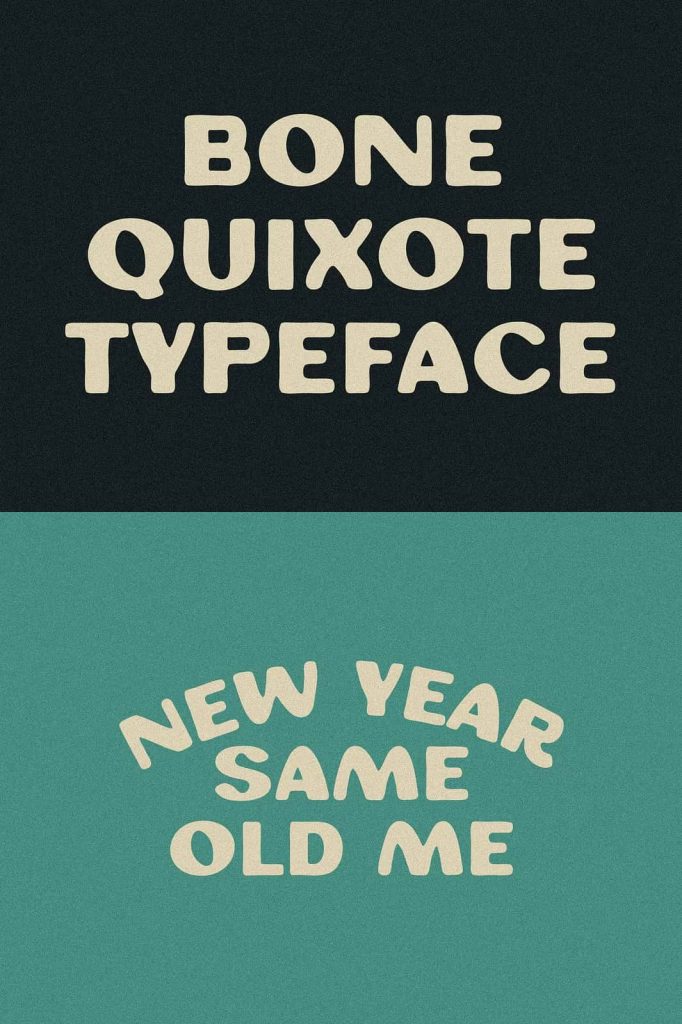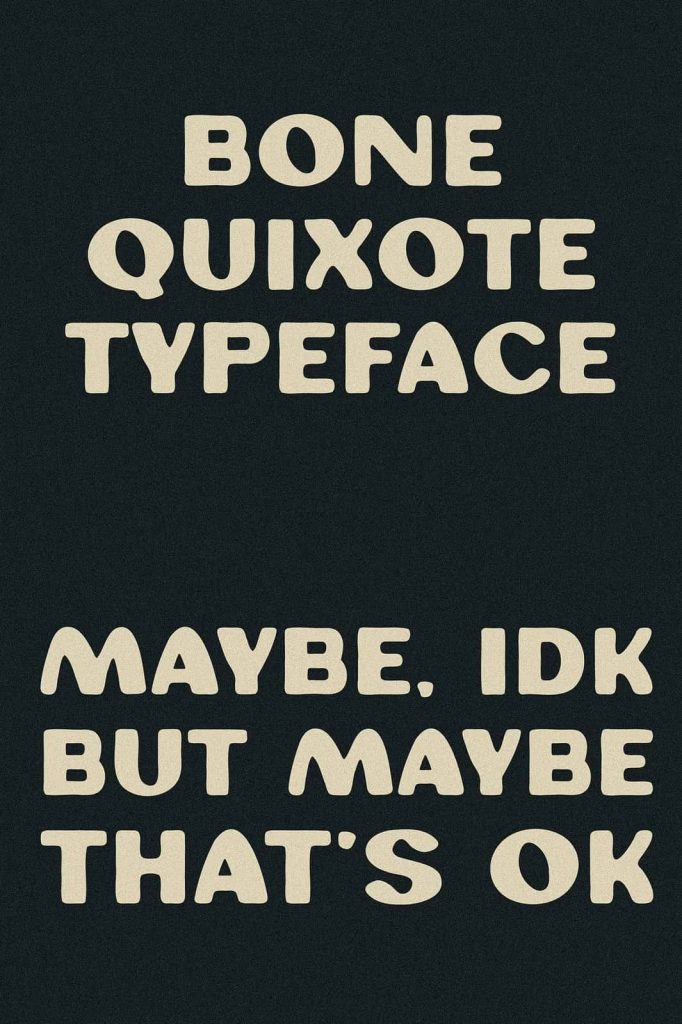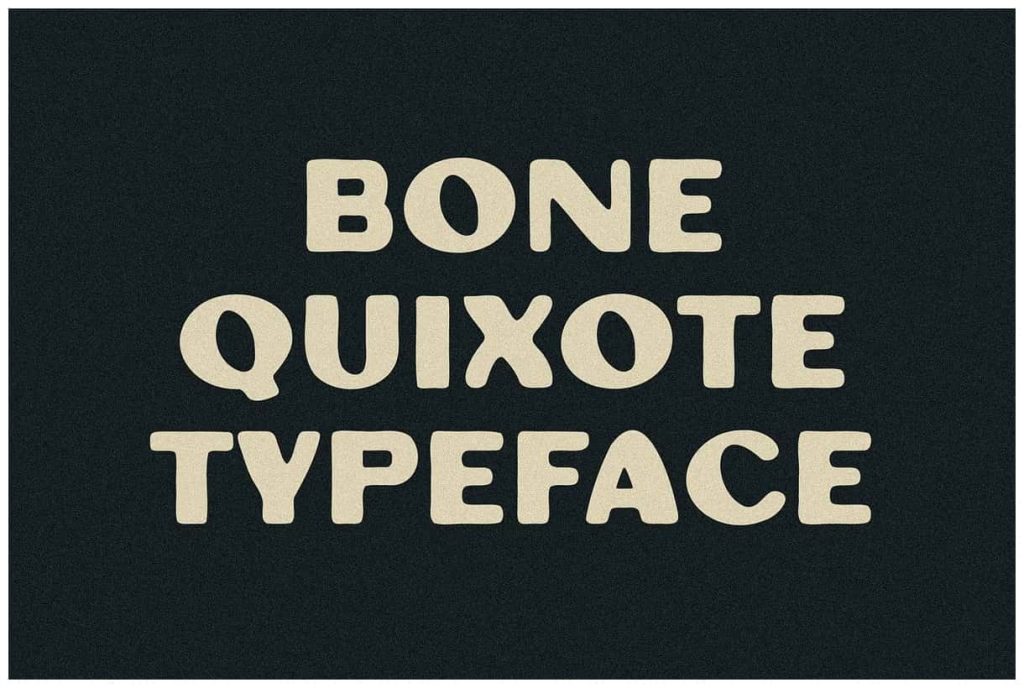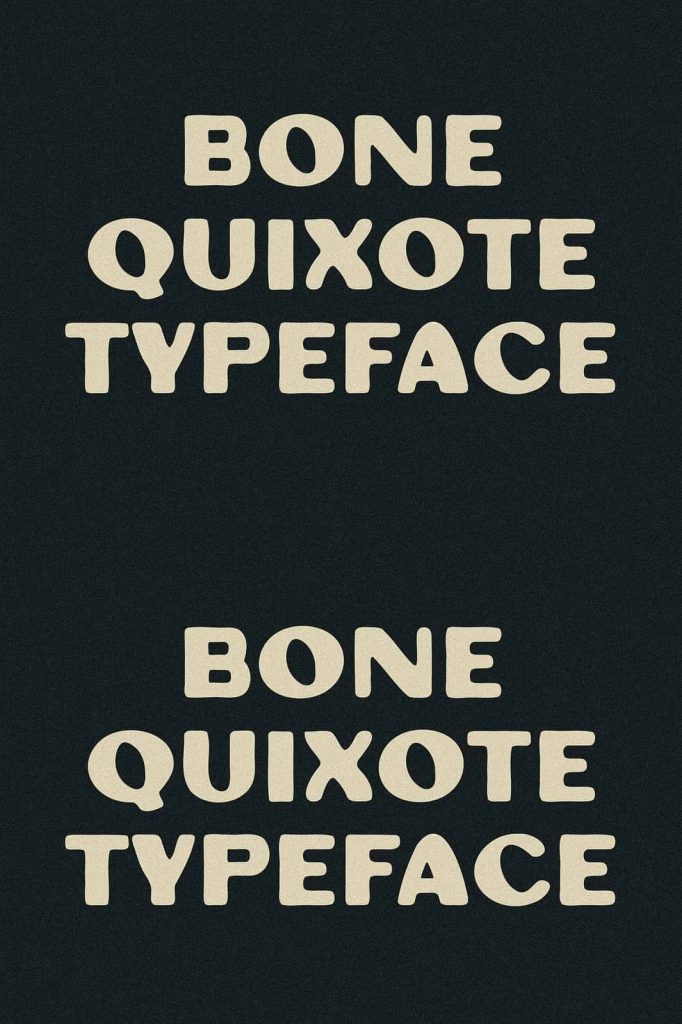
To start us off on the right foot, Bone Quixote (thanks for the name Willard) is the newest font for the newest of years. Originally referencing a small piece of type on a mid-20th century label, the characters are bold and soft with an irregular edge. The R got a little extra attention. Enjoy that.